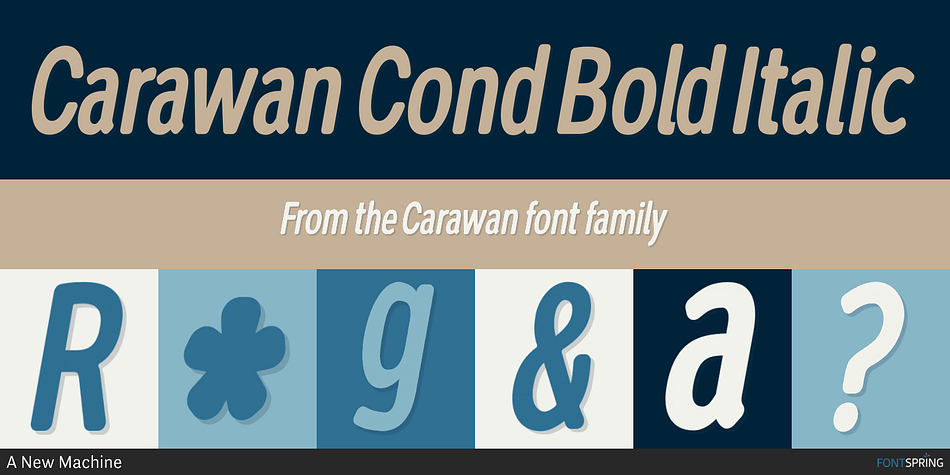
Carawan Cond Bold Italic
Carawan is a sans serif font family. This typeface has eight styles and was published by A New Machine.
A new friendly, sans-serif, condensed, rounded family.
A new friendly, sans-serif, condensed, rounded family. It comes in three weights with their matching oblique and condensed versions.